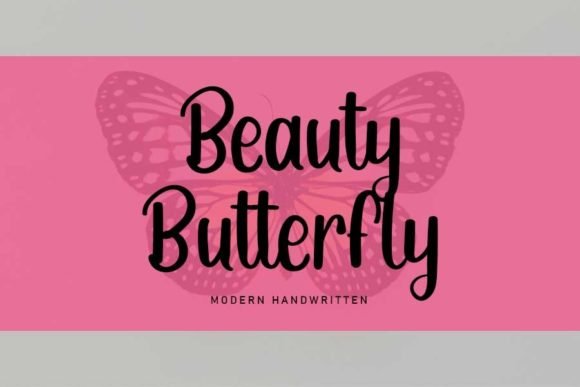
Embracing the Art of Handwritten Design
Have you ever been in the middle of a design project, and suddenly, the perfect font pops into your mind? It’s that magical moment when everything falls into place, and your vision starts to take shape. For many designers, this is what makes the creative process so exhilarating.
That’s exactly what happens when you discover the Beauty Butterfly Font. This sweet and relaxed handwritten font is designed to bring a touch of natural elegance to your designs. Its unique style makes it incredibly versatile, allowing you to use it in a wide range of projects, from invitations and greeting cards to branding and advertising.
For designers, the Beauty Butterfly Font is a valuable addition to their toolkit. Its charm and character can elevate even the simplest designs, making it a must-have for anyone looking to add a personal touch to their work.
Beauty Butterfly Font Key Features
- Font Family: Beauty Butterfly, with a variety of styles (Regular, Bold, Italic, Bold Italic) for versatile use.
- Unique Characteristics: Delicate, hand-drawn design with intricate details, giving it a whimsical and feminine touch.
Beauty Butterfly Font Review
I recently had the chance to work with the Beauty Butterfly Font, and I must say it’s a unique and eye-catching addition to any design project. ✨ Here are some things that work well:
- Customizable: The font is available in a range of colors and styles, making it easy to adapt to different design needs.
- Playful feel: The whimsical design of the font adds a touch of playfulness to any project, making it perfect for creative and youthful brands.
- High-quality: The font is well-designed and looks great at various font sizes and resolutions.
However, I did encounter some limitations ⚠️:
- Limited support: The font doesn’t have complete support for certain languages, which may limit its use in multilingual projects.
- Not ideal for formal designs: The playful feel of the font may not be suitable for formal or professional projects, where a more serious tone is required.
Overall, I think the Beauty Butterfly Font is a great choice for designers looking to add a touch of whimsy to their projects. While it may not be suitable for all projects, it’s definitely worth considering for those with a playful and creative tone.
The Beauty Butterfly Font is ideal for creating whimsical and playful designs, such as:
- Birthday invitations and party decorations
- Wedding stationery and wedding decorations
- Children’s book illustrations and educational materials
- Blog posts and social media graphics with a feminine touch
Remember to experiment with different font sizes, styles, and colors to get the most out of the Beauty Butterfly Font.